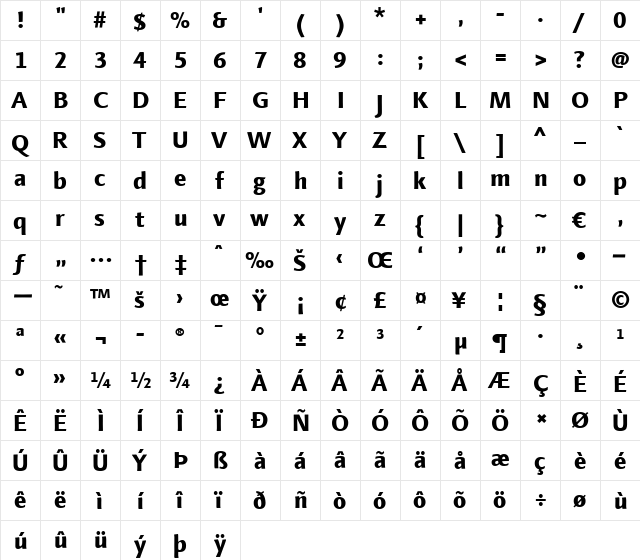
LTFinnegan Medium Bold
| Designer | Juergen Weltin |
Design Context for LTFinnegan Medium Typeface
LTFinnegan Medium is a composed and adaptable typeface that performs quietly and consistently across a wide range of design contexts. Its bold stroke weight gives it real presence on the page.